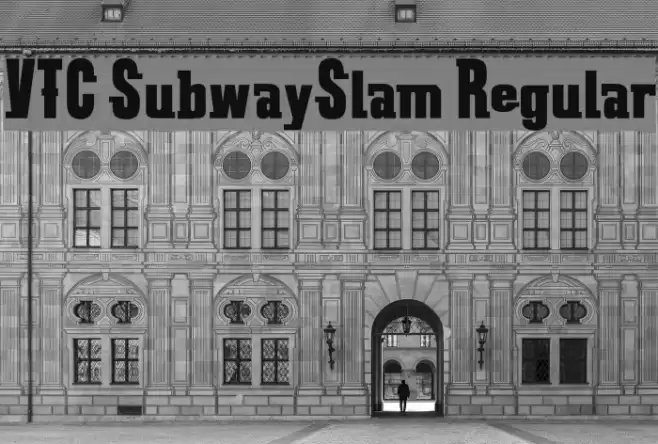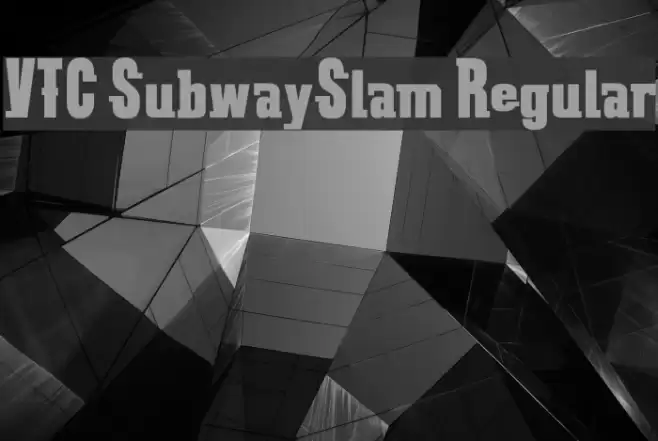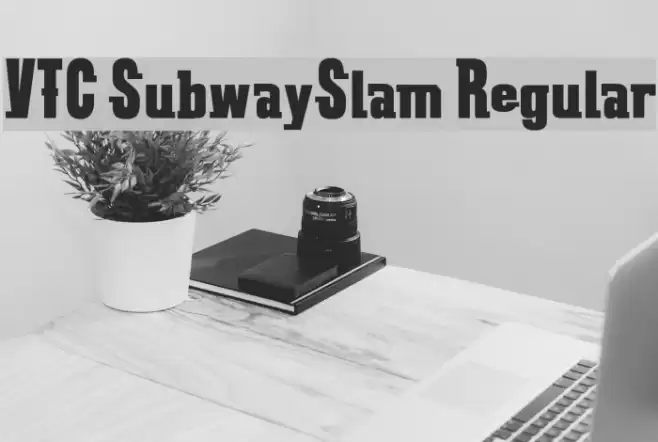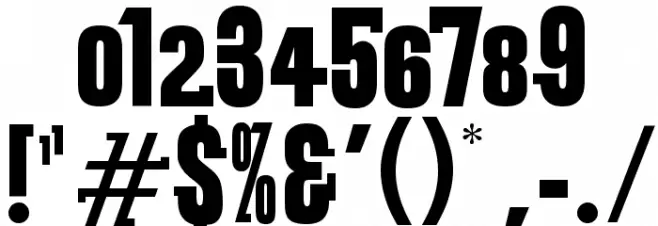
VTC SubwaySlam Regular Font
VTC SubwaySlam Regular Description
This bold and impactful font features strong, thick strokes that create a commanding presence. The uppercase letters are particularly robust, with a slight slant that adds a dynamic feel. The lowercase characters maintain the same boldness, ensuring consistency across text. Numbers are equally bold, making them stand out clearly. Special characters are designed with the same weight and style, ensuring they integrate seamlessly with the rest of the font. The overall appearance is assertive and modern, making it ideal for attention-grabbing designs.
A bold, impactful font with strong, thick strokes and a modern style from Uncategorized fonts.
- Proposed Projects: Ideal for posters, headlines, branding, and any design requiring a strong visual impact.